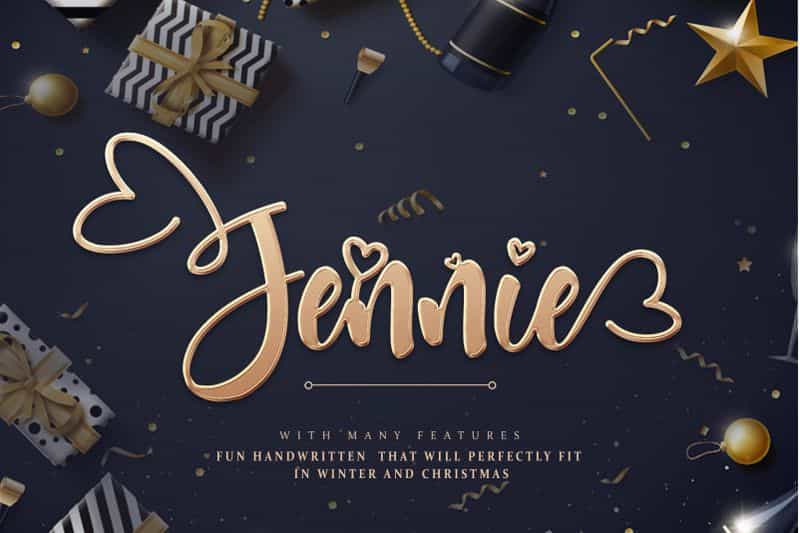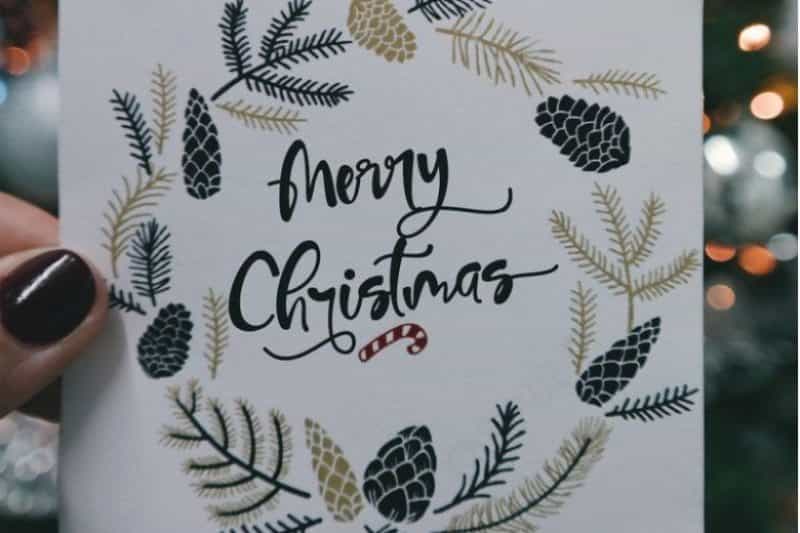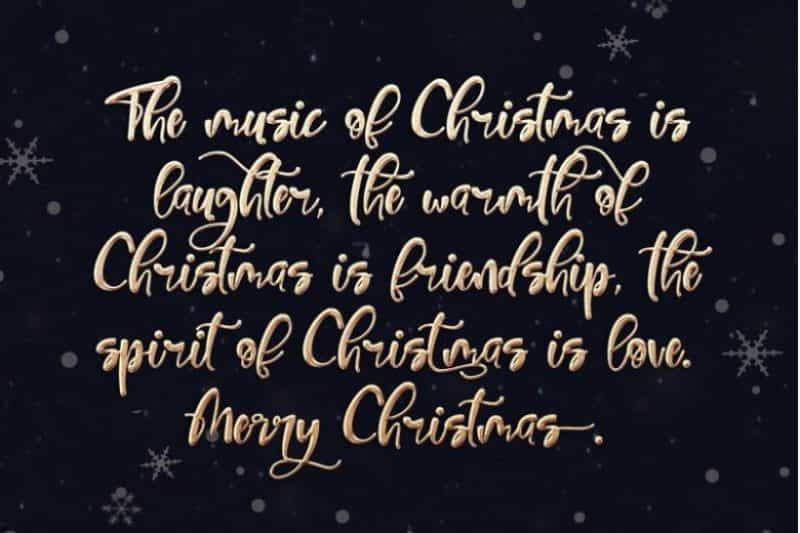
Jennie Font is a cheerful handwritten font with many options that will suit perfectly for winter and Christmas designs . It can be used for various purposes such as: clothes, T-shirts, posters, greeting cards, Christmas and holiday greetings cards, wedding invitations, and stationery, logos, and many more.